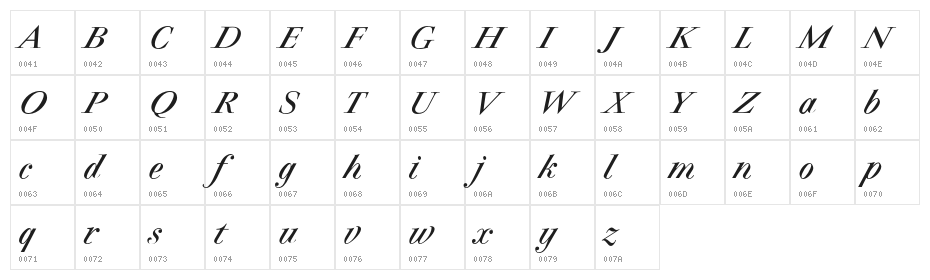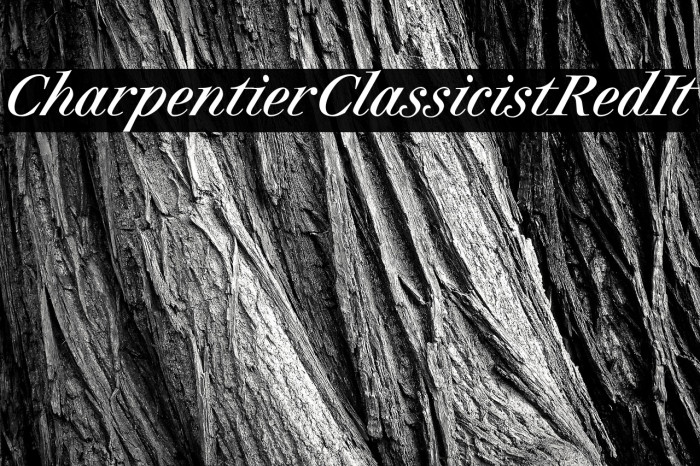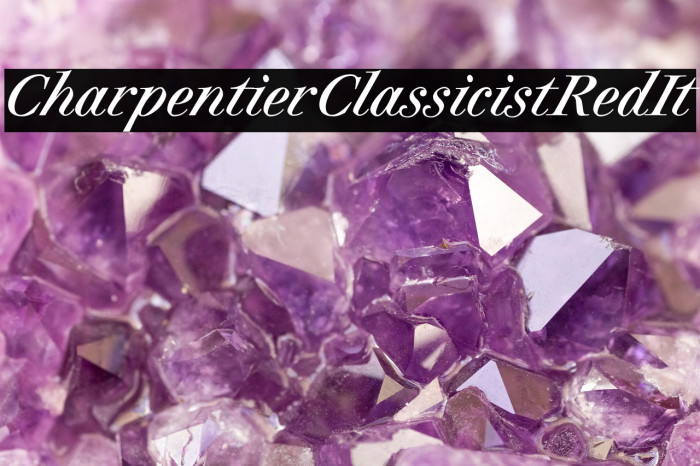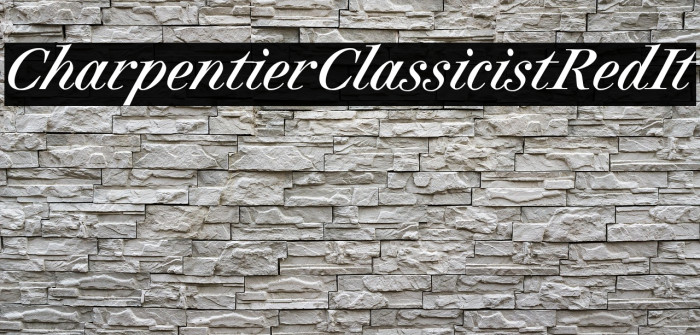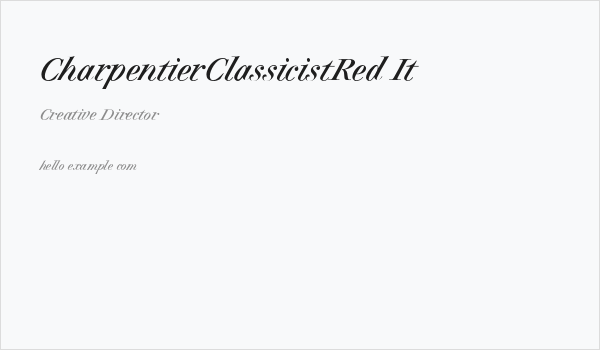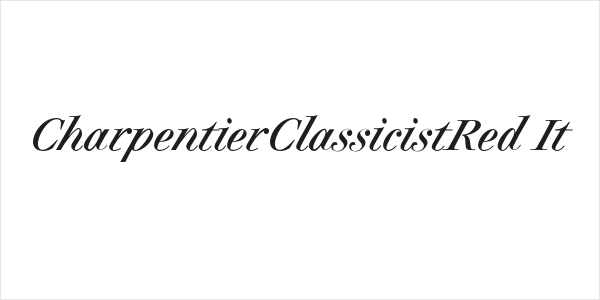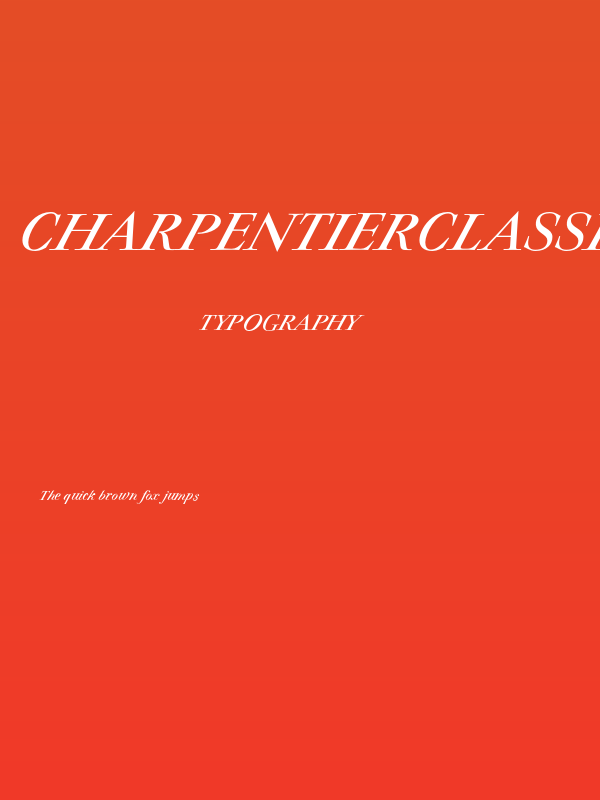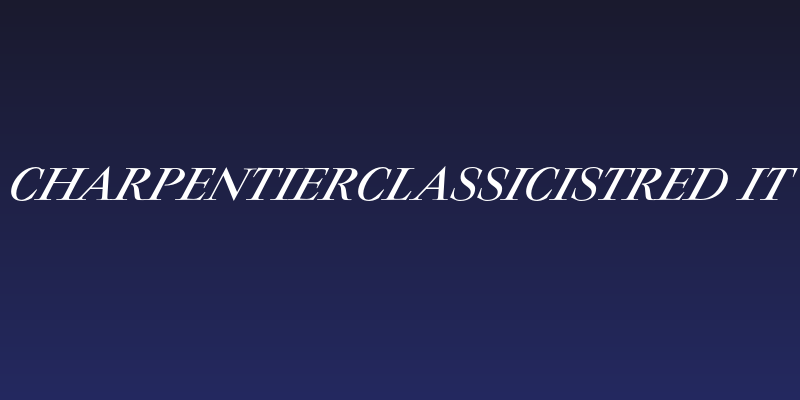
CharpentierClassicistRed-It Font
CharpentierClassicistRed-It Description
This elegant serif font features a classic and sophisticated design with a distinct italic style. The characters are gracefully slanted, adding a sense of movement and fluidity. The uppercase letters are tall and refined, while the lowercase letters maintain a harmonious balance with their slightly rounded forms. The font exhibits medium contrast in stroke thickness, enhancing its readability and aesthetic appeal. Its timeless elegance makes it suitable for formal and traditional applications, where a touch of class is desired.
| Proposed Projects | Ideal for wedding invitations, formal event programs, luxury branding, and editorial design. |